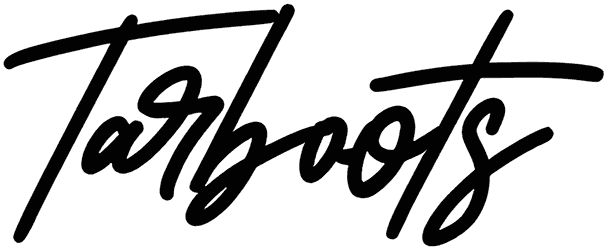
Meet Tarboots, a nice handwritten font with a real face. This signature font expresses a stylish and unique mood and, even without numbers and most of the punctuation, can be harmonized with many projects and various themes. To display your later designs, for example, postcards, fashion-related designs, magazines, and more items, you can use Tarboots and show your creativity.